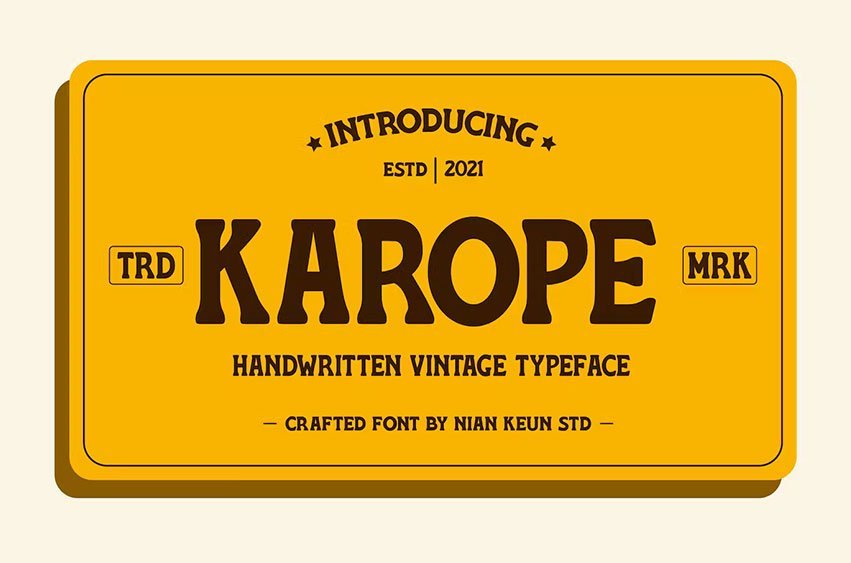
Karope Handwritten Vintage Typeface Font is a very cool and dynamic serif font that makes your display more attractive. In an increasingly attractive design, you can include it in graphic design, social media, and branding.